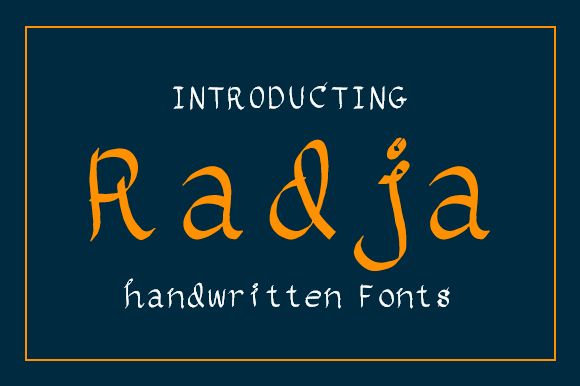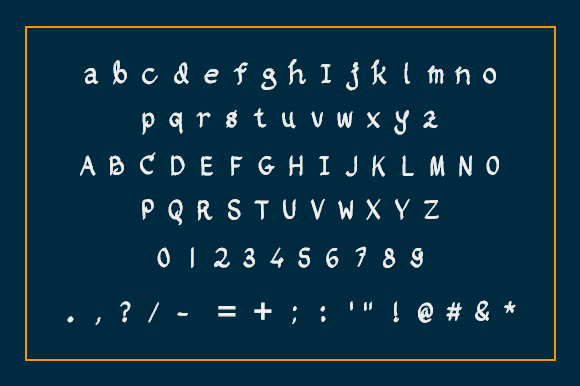
Radja Font
About Radja Font
Radja is a casual, charming handwritten font, designed with the help of a brush pen. It has been carefully handcrafted to become a true favorite. Radja will look outstanding in any context, whether it’s being used on busy backgrounds or as a standalone headline!